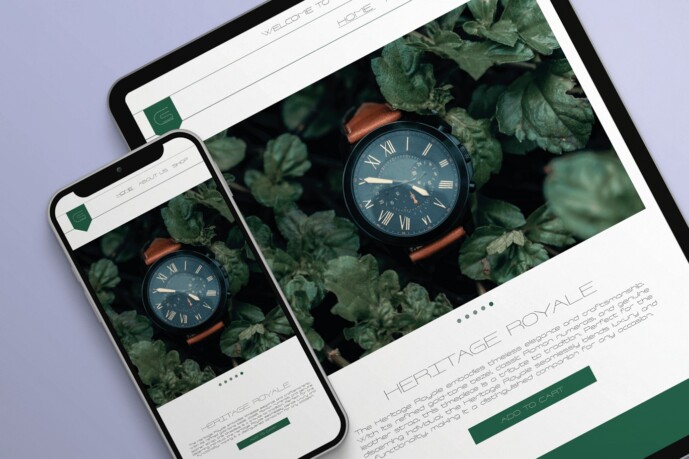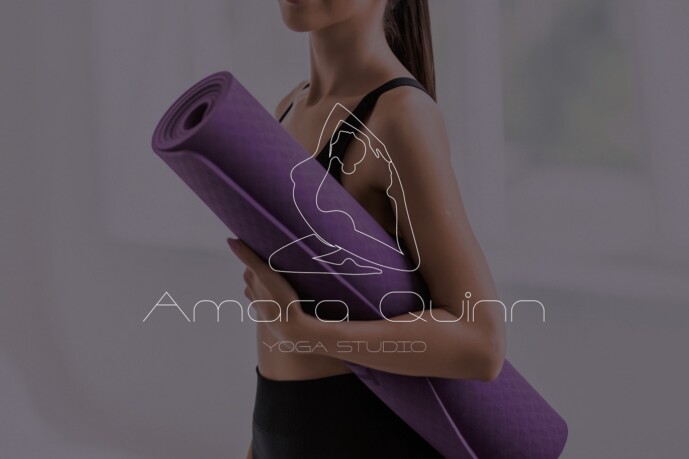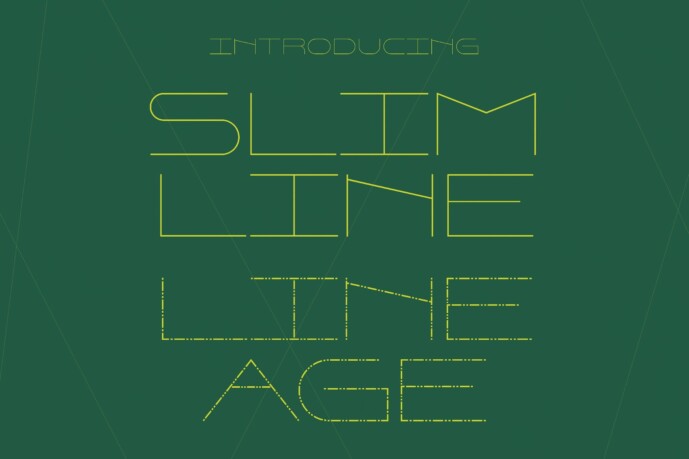
Slimline Lineage Font
Slimline Lineage Font, the ultimate ultra-thin typeface for designers who appreciate clean, minimalist beauty. Available in two clean styles (regular and dotted), this font brings a modern touch and elegant to any project.
Whether you’re creating logos, posters, branding materials, or web designs, Simline Lineage’s simplicity and precision make it the perfect choice. Its understated yet impactful presence lets your work shine with effortless sophistication. For graphic designers looking to enhance their designs with a minimalist, refined touch, Simline Lineage is a must.